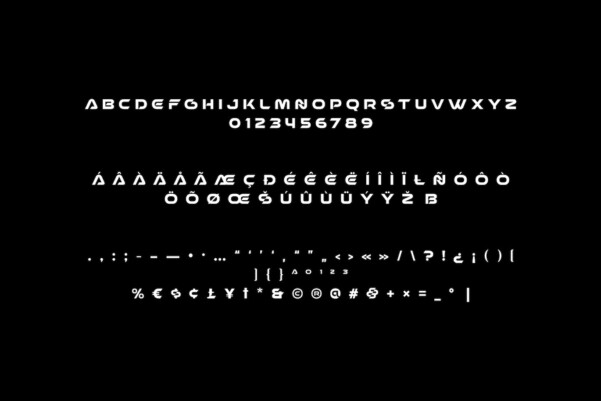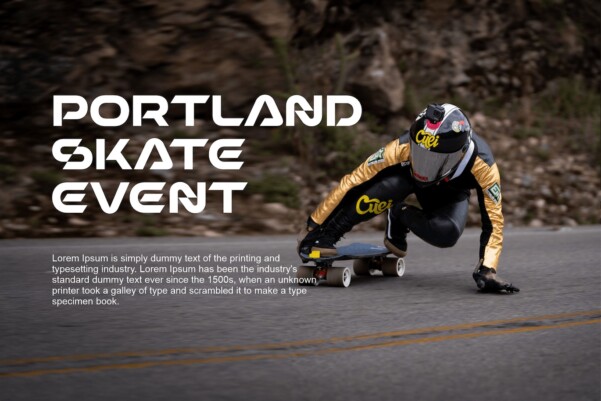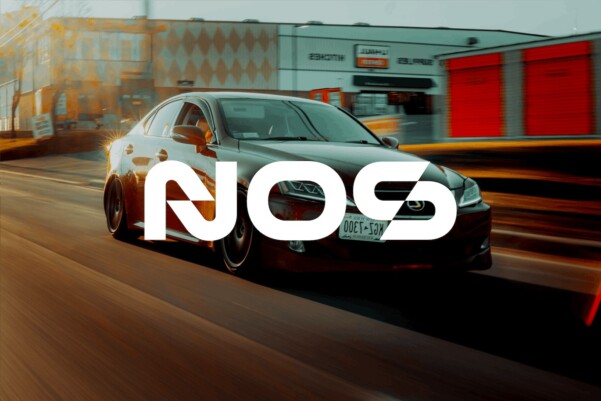
Nos Font
Nos Font embodies elegant, dynamic lines reflecting the speed and energy of modern sports racing. Its bold typography captures the essence of velocity, with clean, futuristic contours that evoke a feeling of movement full of adrenaline.